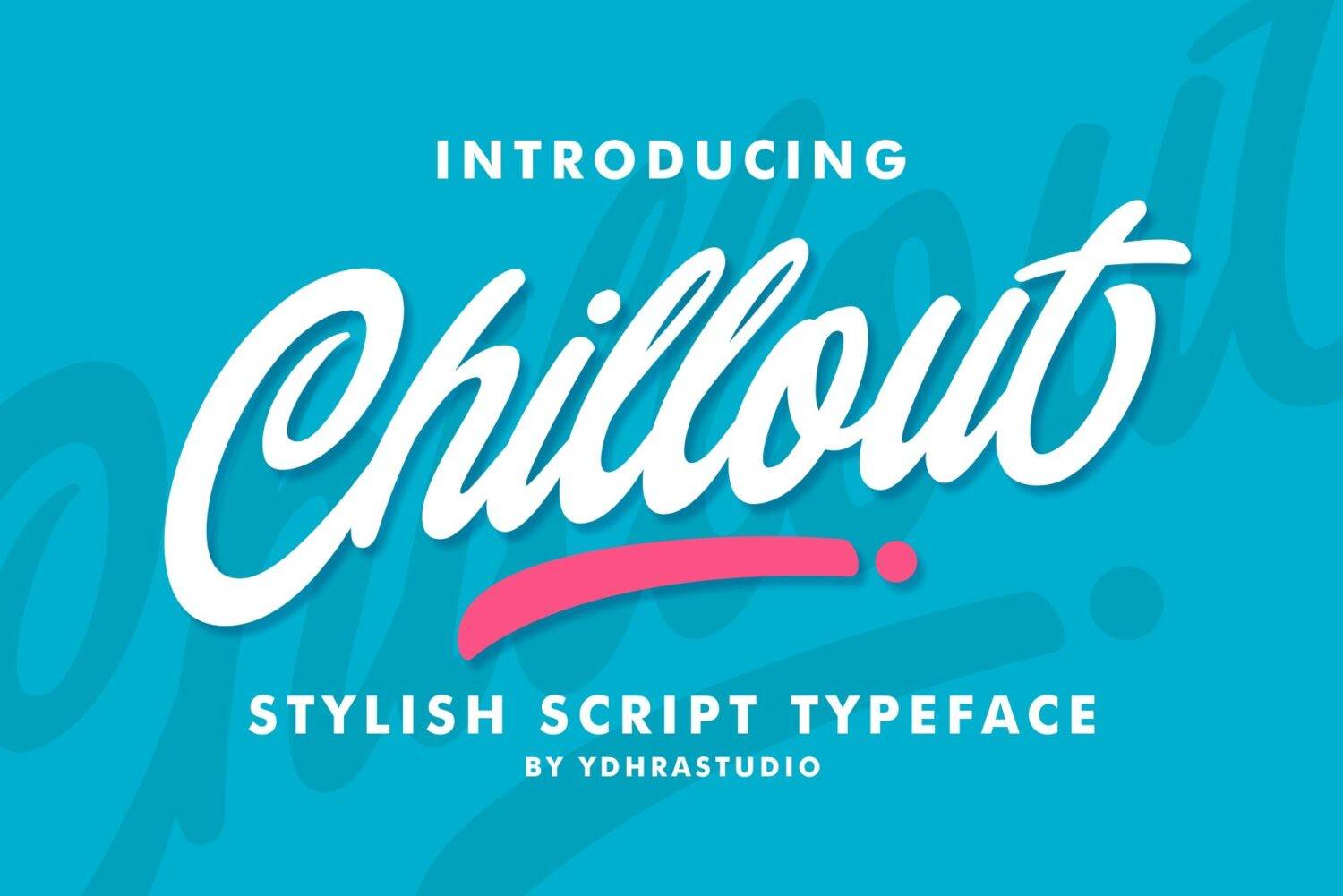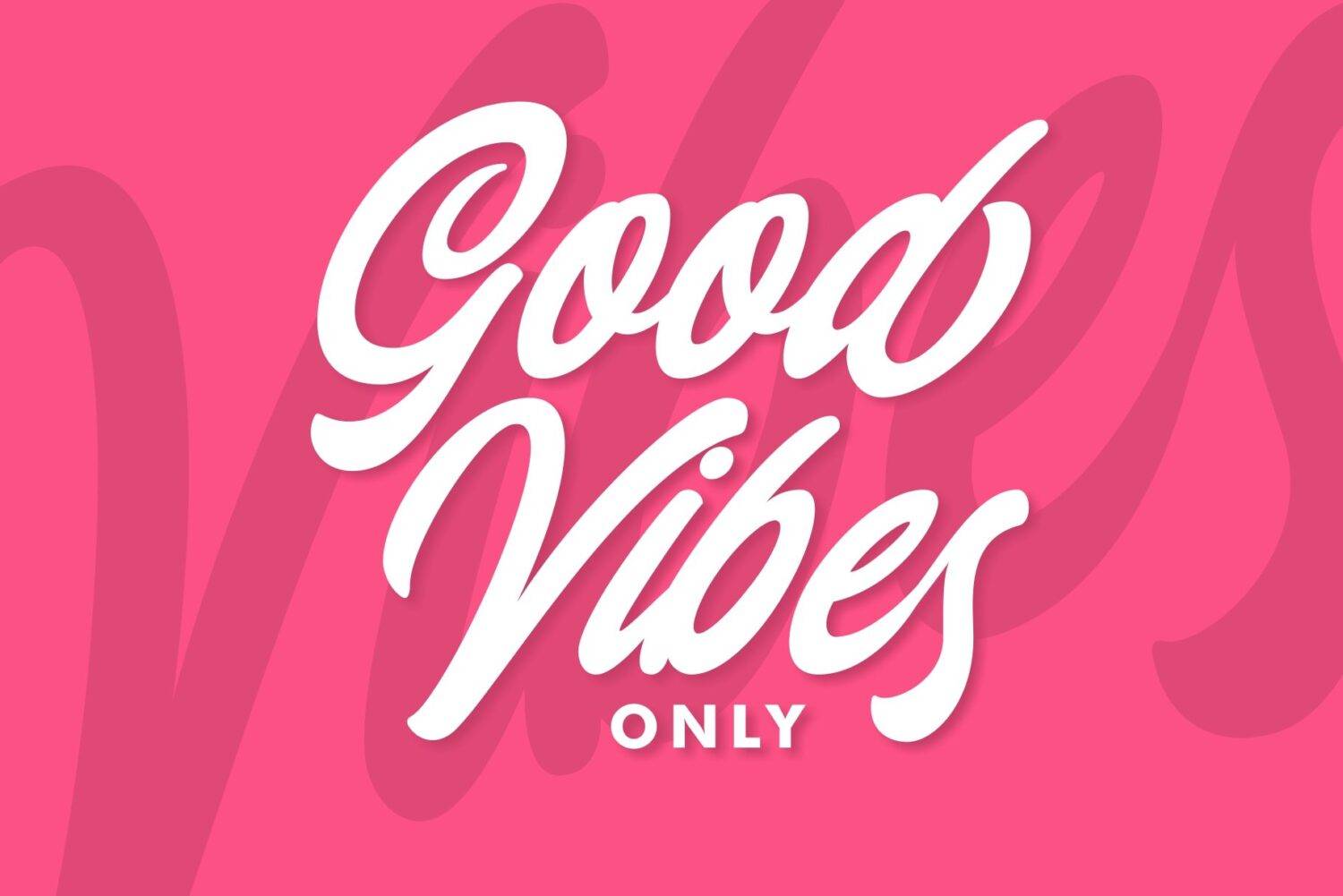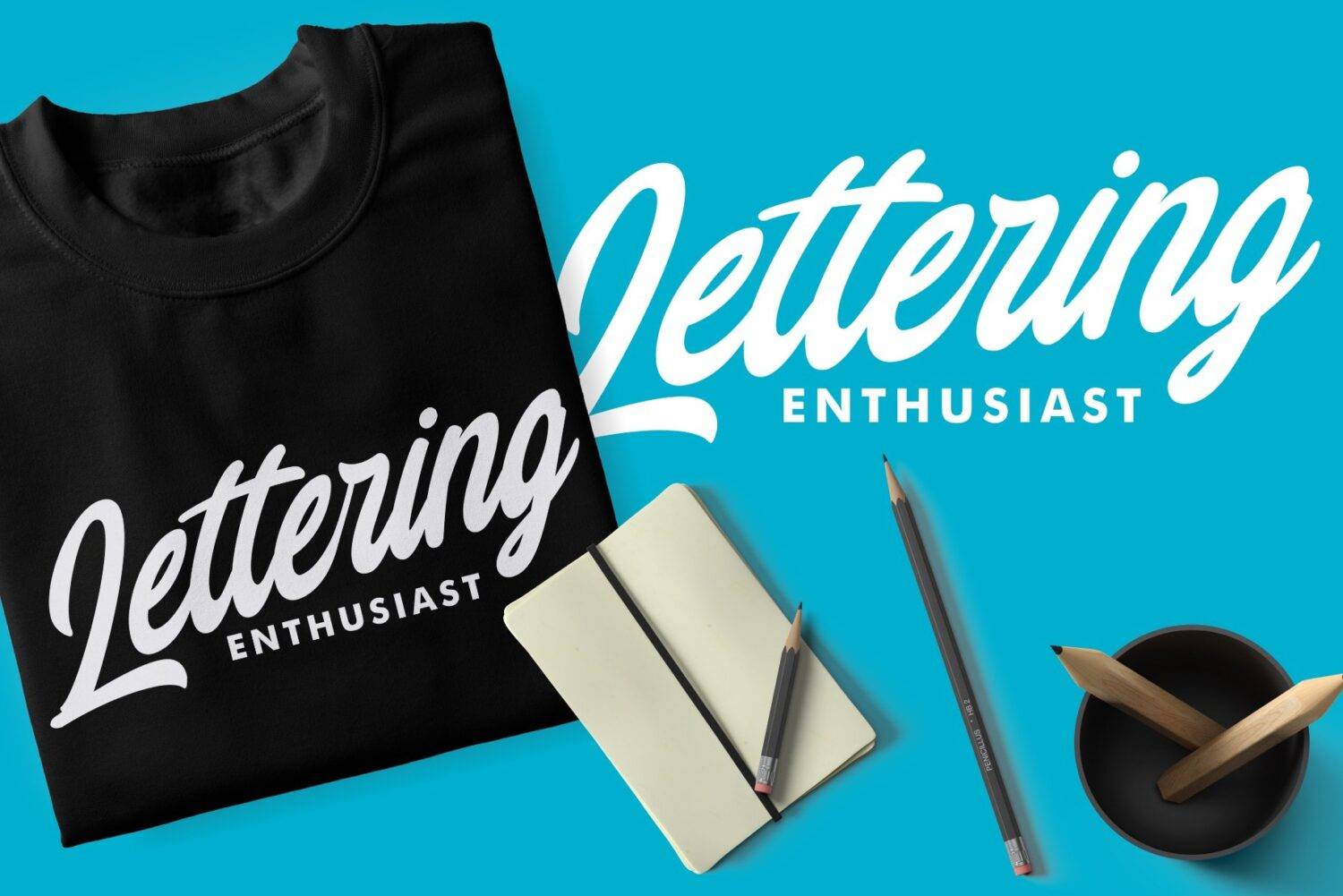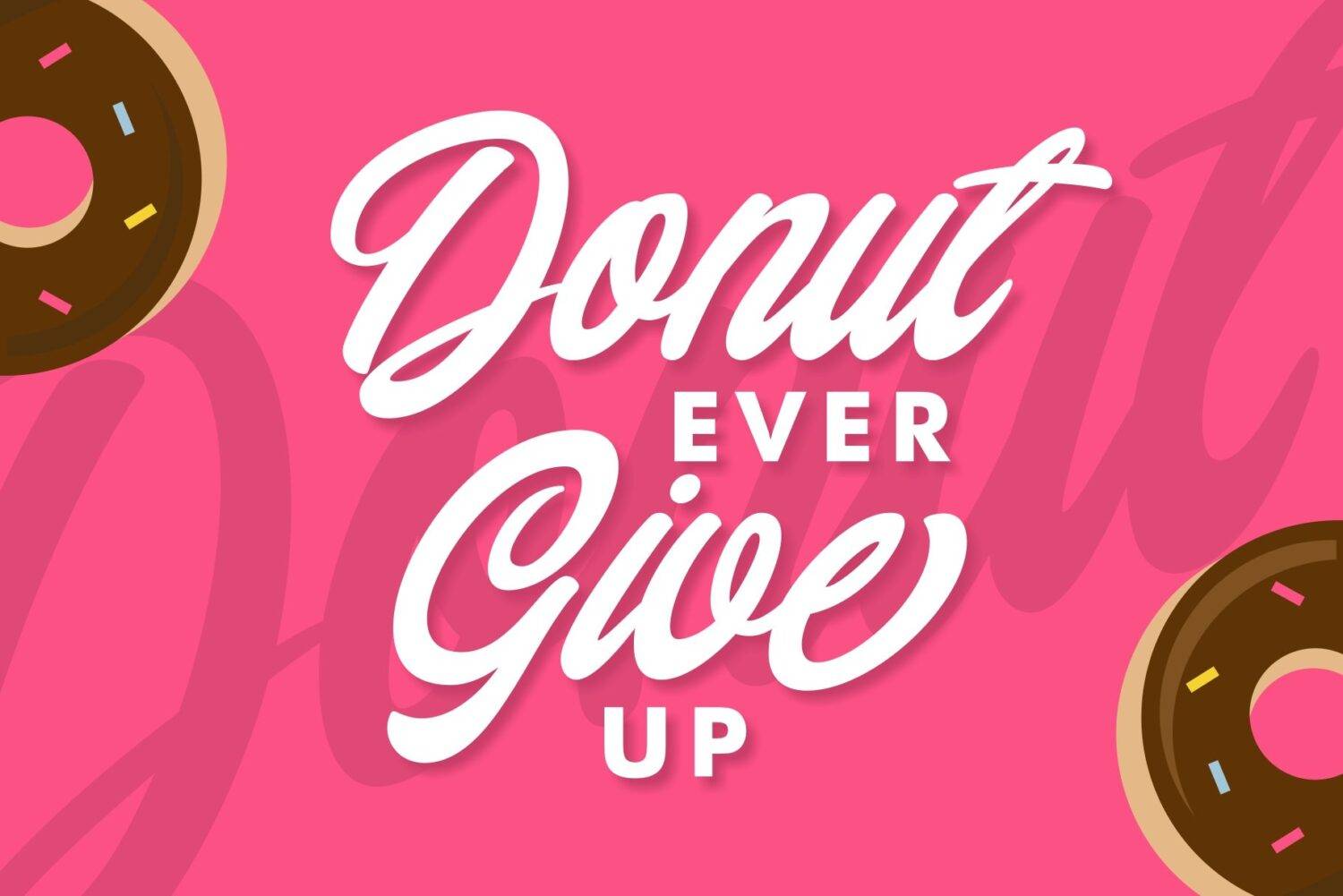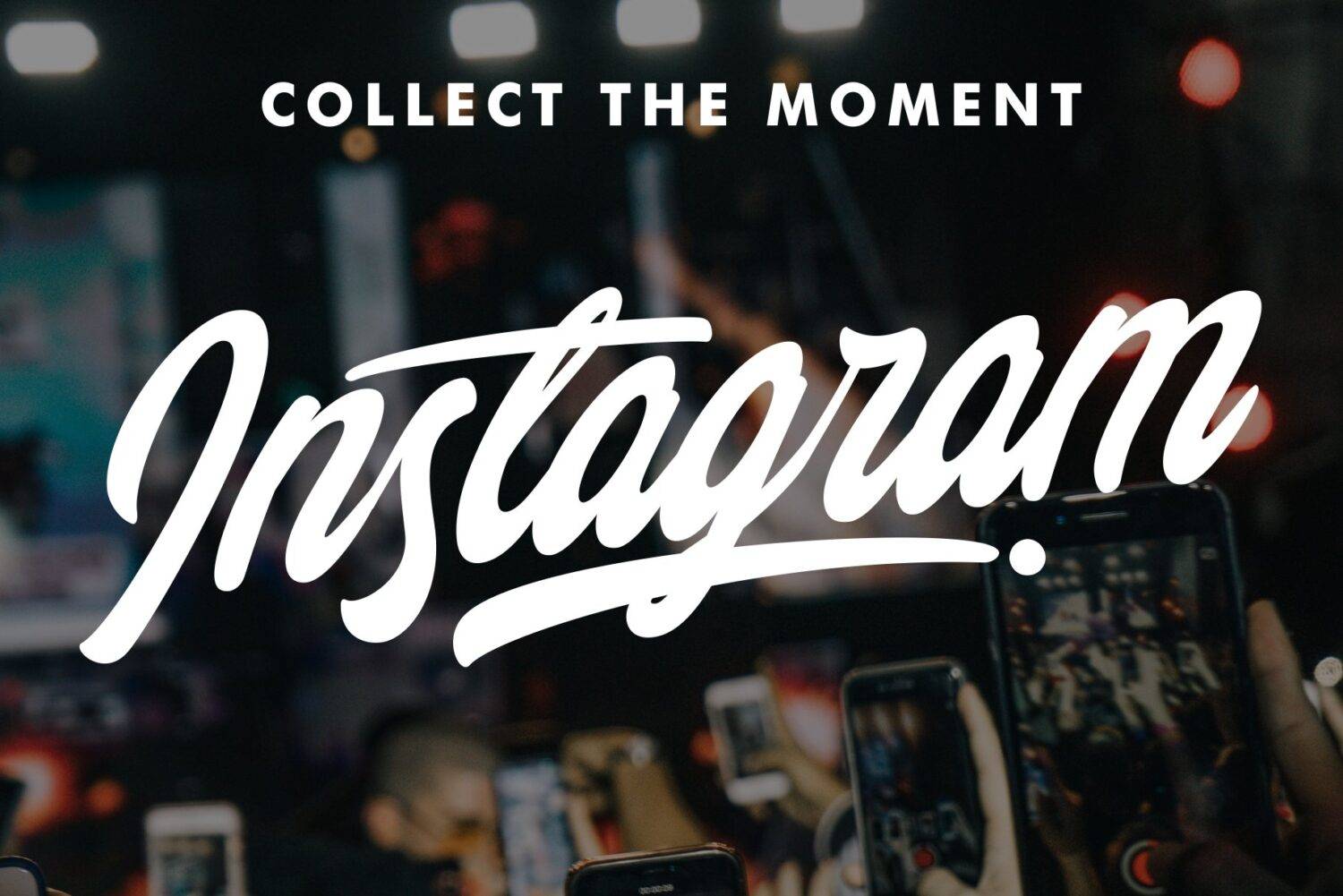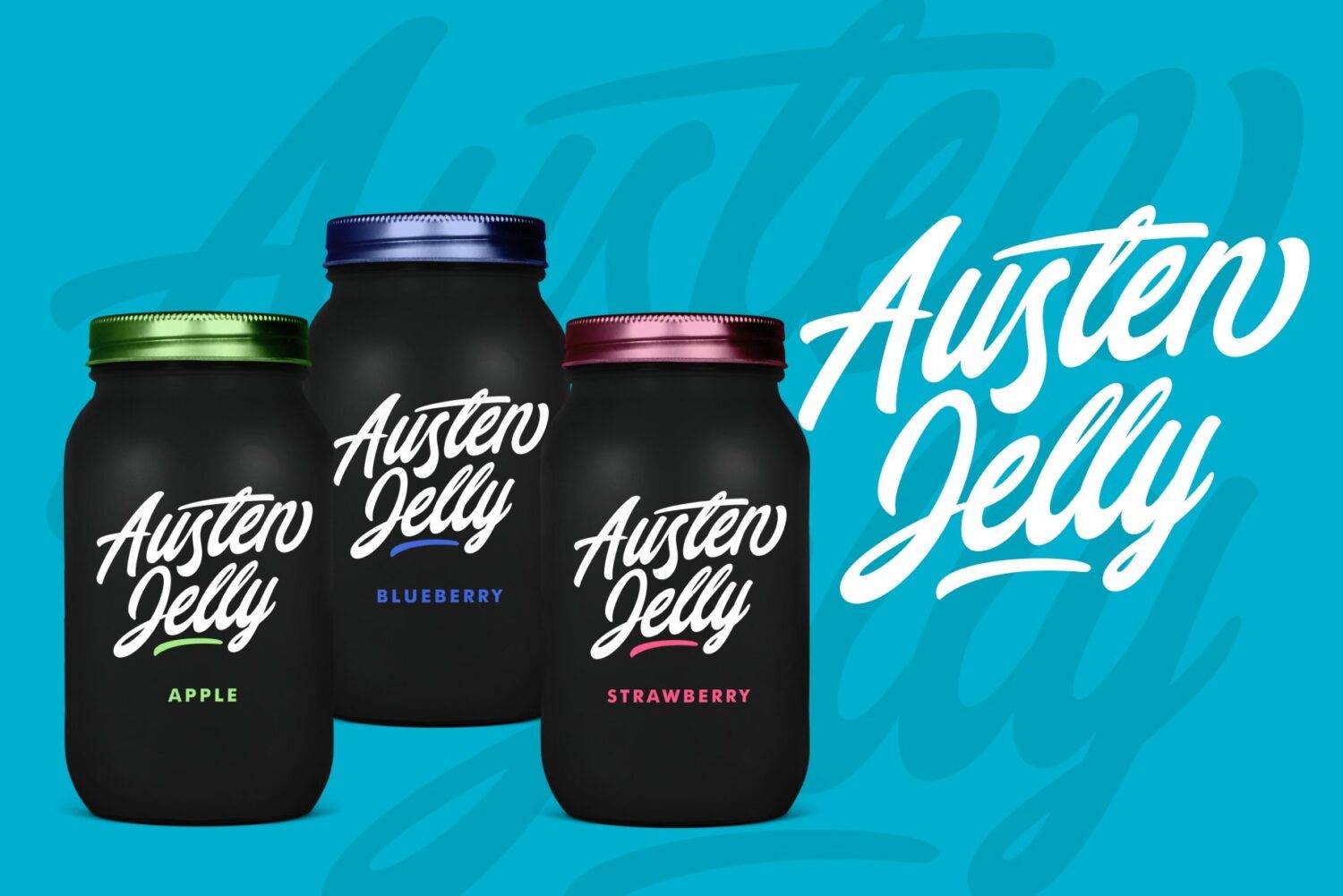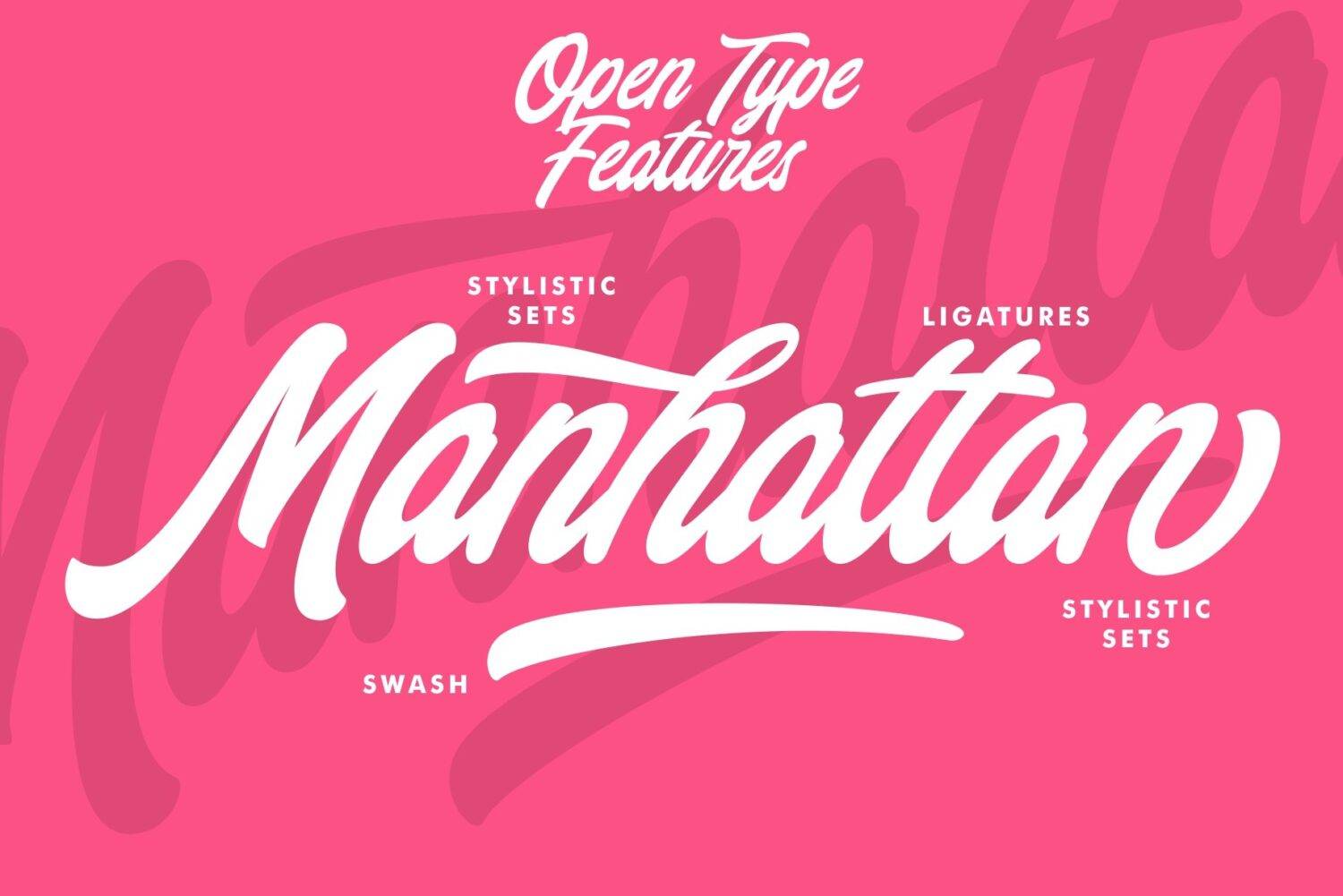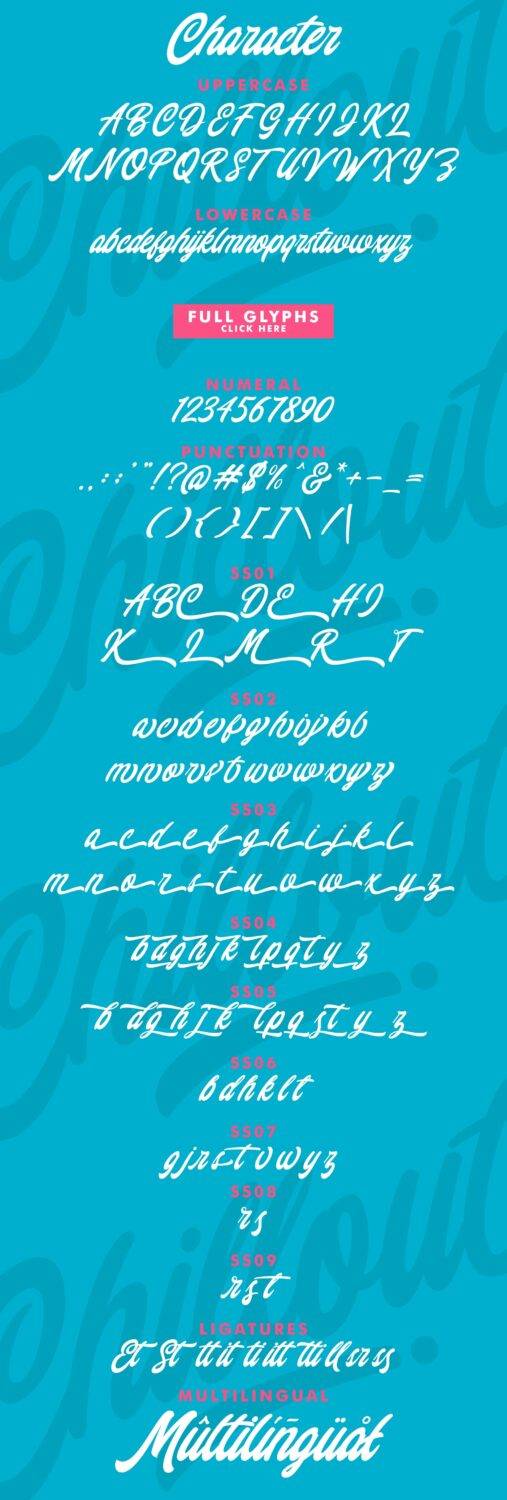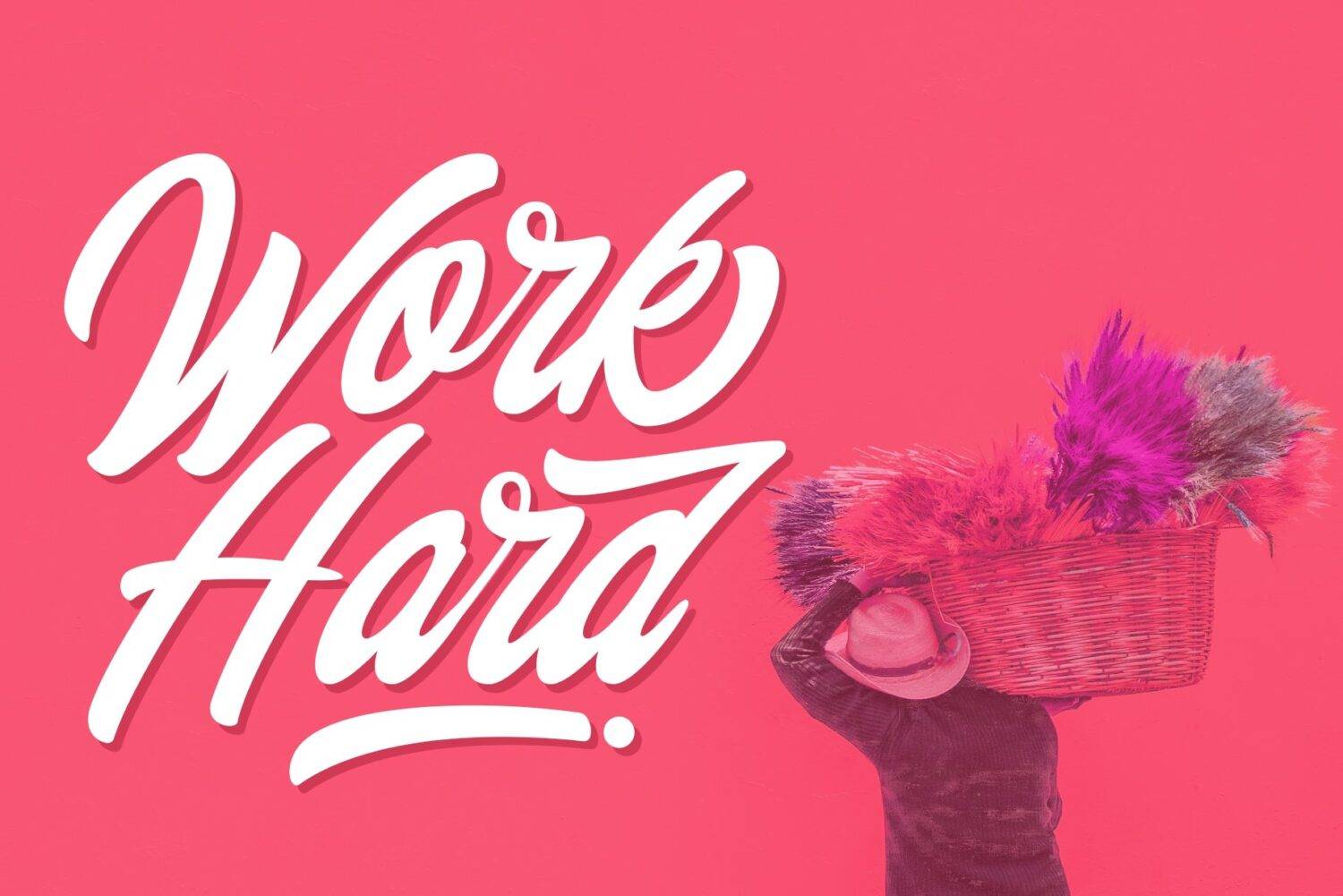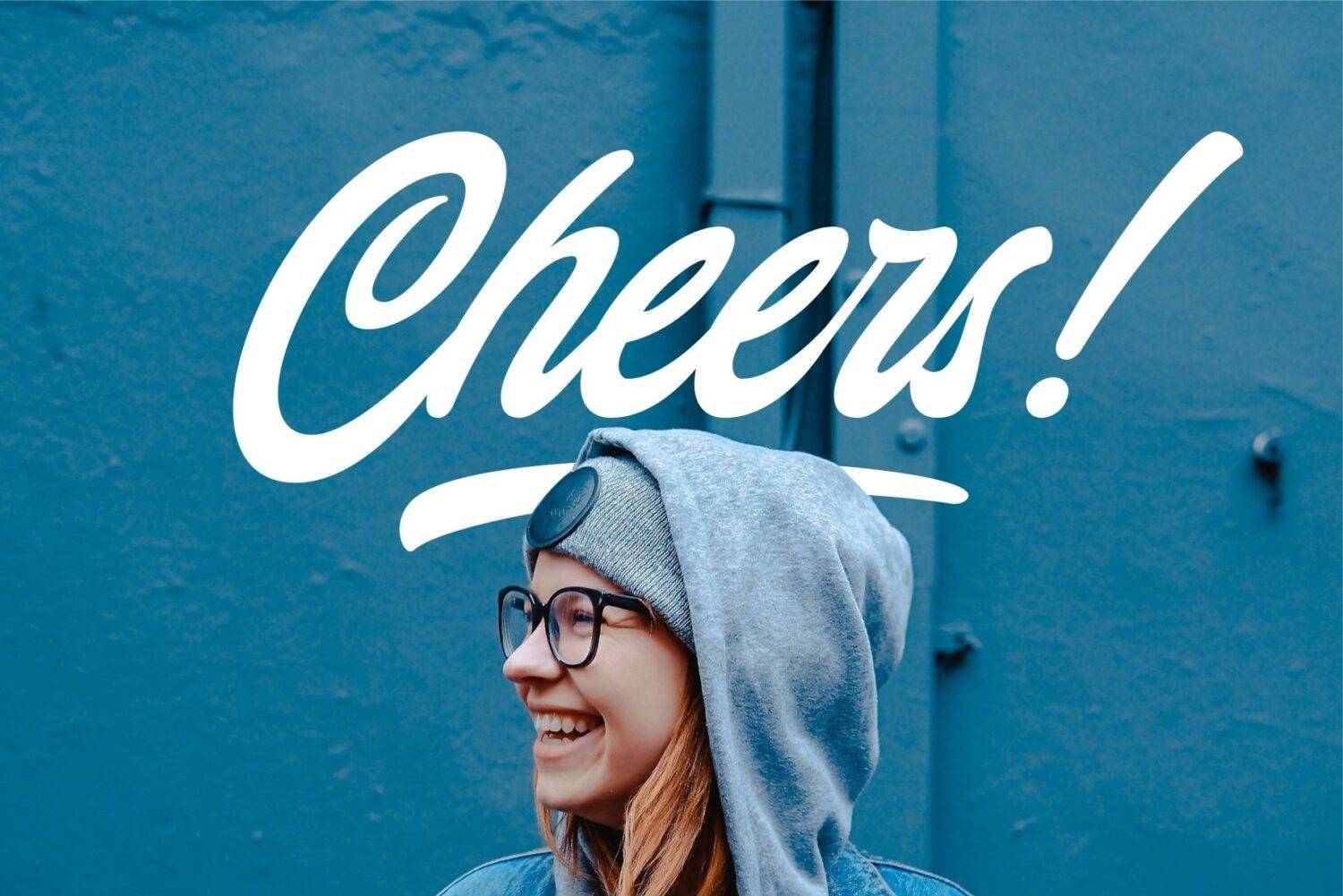
Chillout Handlettering Script is a bold, flowing typeface with a lively, handwritten style that feels casual yet confident. Its smooth, connected strokes and slightly italicized angle give it a dynamic, personal touch, making it perfect for branding, invitations, and headlines that want to convey warmth and personality. This font shines in creative and informal settings where a friendly, energetic vibe is desired.
Chillout Handlettering Script
About Chillout Handlettering Script
| Font family | Chillout Handlettering Script |
| Release date | 2018-11-06 |
| Designer | Yudha Rahmat Ageng |